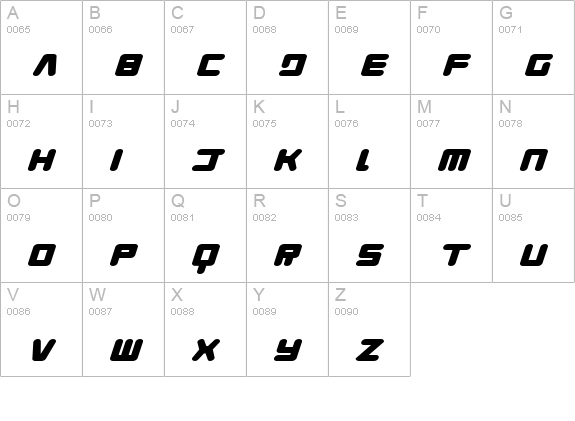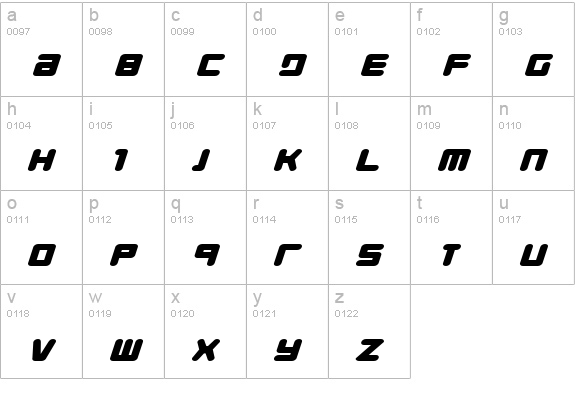
Young Techs Expanded Italic Font Details
Young Techs Expanded Italic is a distinctive, extended-width, italic variant in the Young typeface family \xE2\x80\x94 well suited to design and typography projects.
Introducing Young Techs Expanded Italic font - a sleek and modern typeface designed for tech-savvy individuals and creative minds. This font exudes a sense of innovation and sophistication, making it perfect for a wide range of design projects. With its bold and italicized style, Young Techs Expanded Italic adds a dynamic touch to any text or graphic. What sets Young Techs Expanded Italic apart is its versatility and readability, making it ideal for both digital and print applications. Whether you're working on a website, branding materials, or editorial designs, this font will make your content stand out. And the best part? Young Techs Expanded Italic is available for free download at FontsMarket.com. Take advantage of this opportunity to enhance your projects with a cutting-edge font that captures the essence of modern technology and creativity. Download Young Techs Expanded Italic today and elevate your design game to the next level.